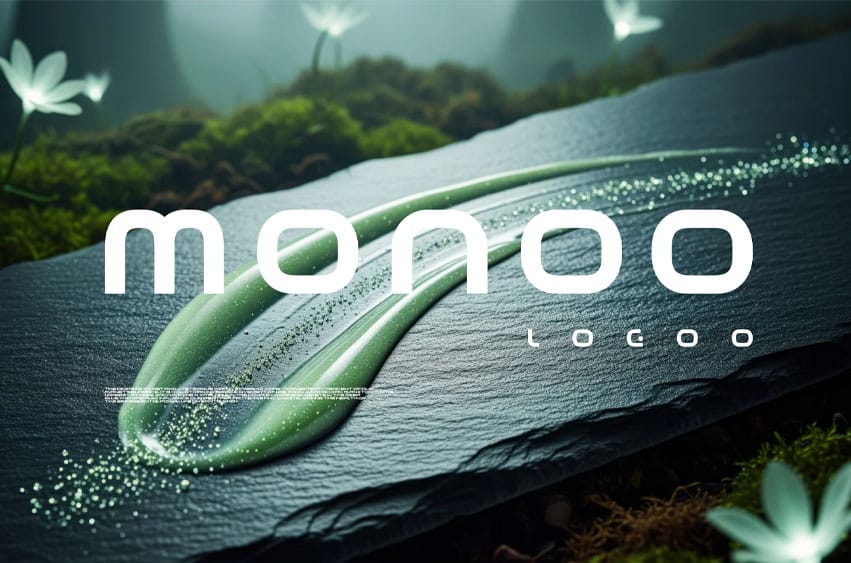
Monoo Logo Font feels remarkably grounded and contemporary, offering a sense of democratic accessibility where the message is never overshadowed by the medium.
To the viewer, it suggests a personality that is straightforward